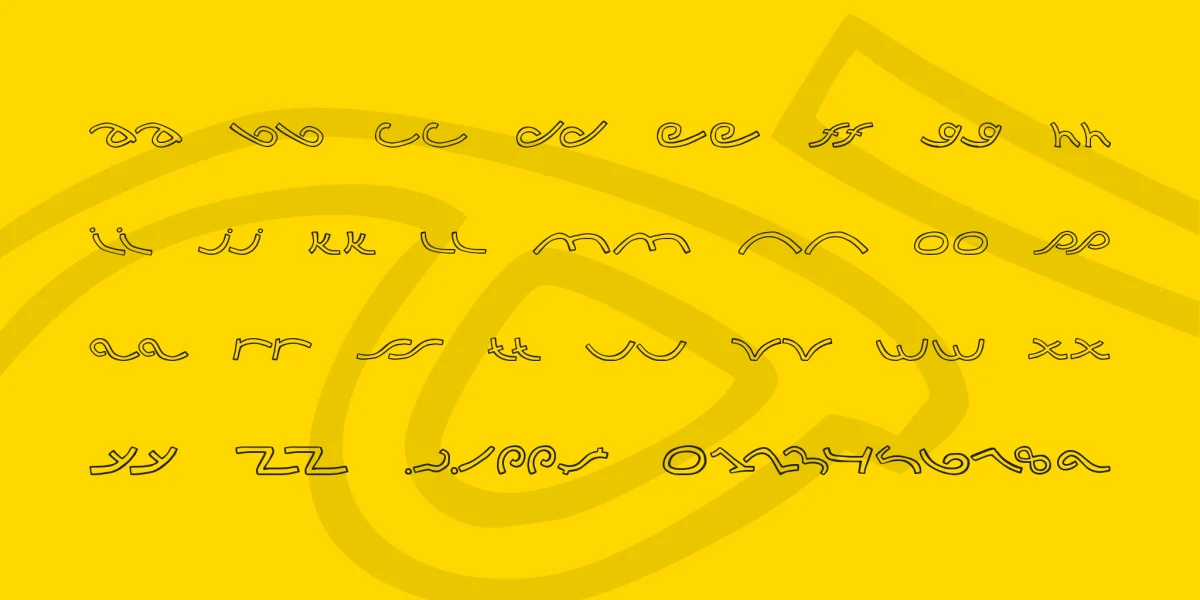
(Most Keyboard Characters (caps=lower), some foreign/special) -- This was my final font for my fonts class. It's really wide and script-like. Don't get too excited though; some words look great in this font, and other words look crummy. Anyway, try it out!